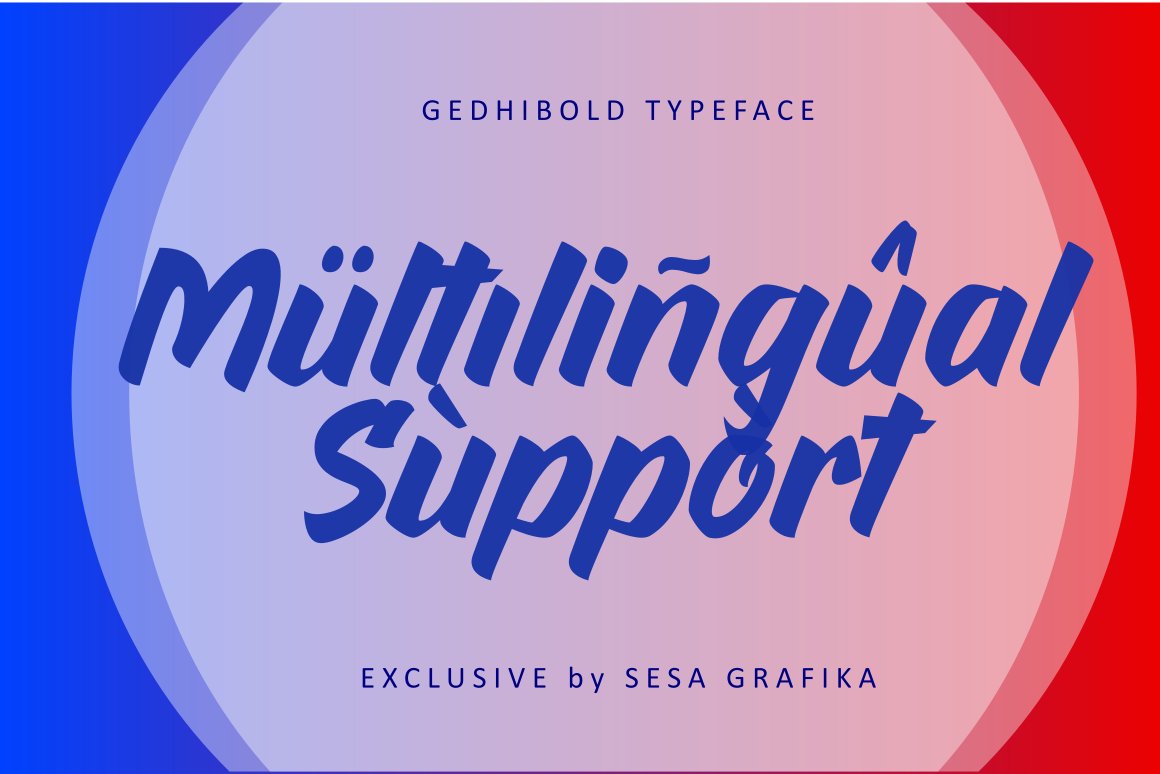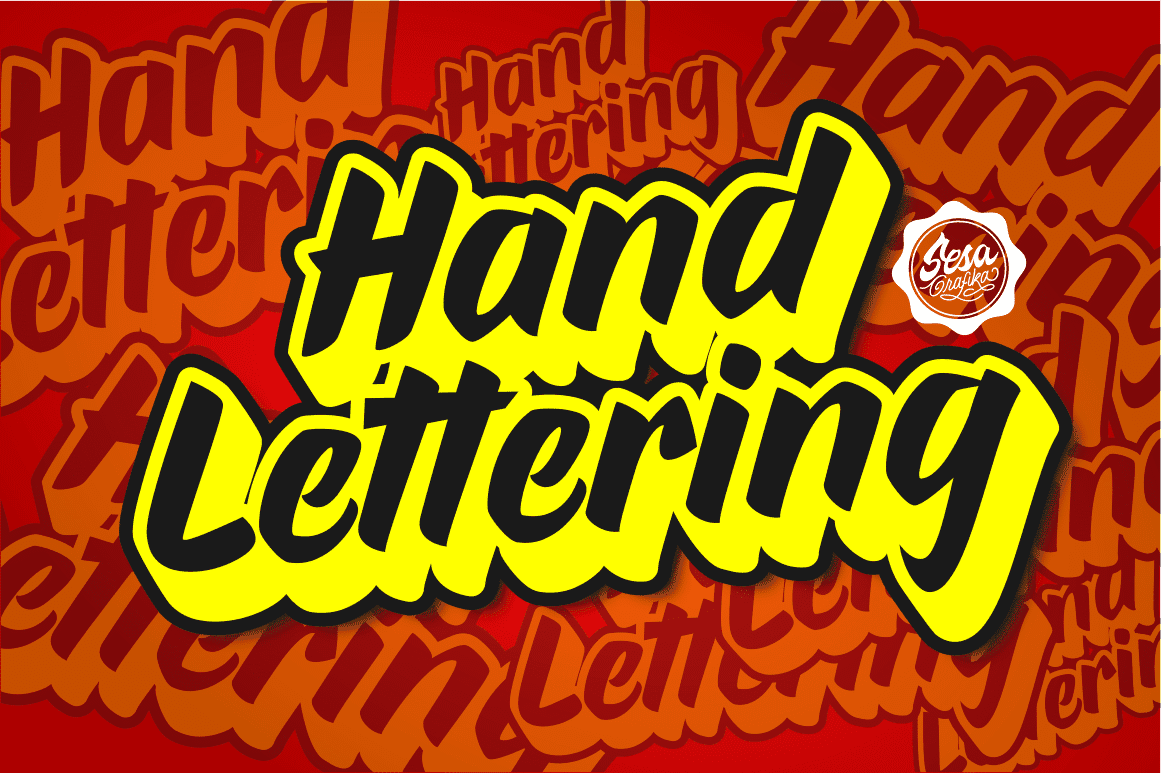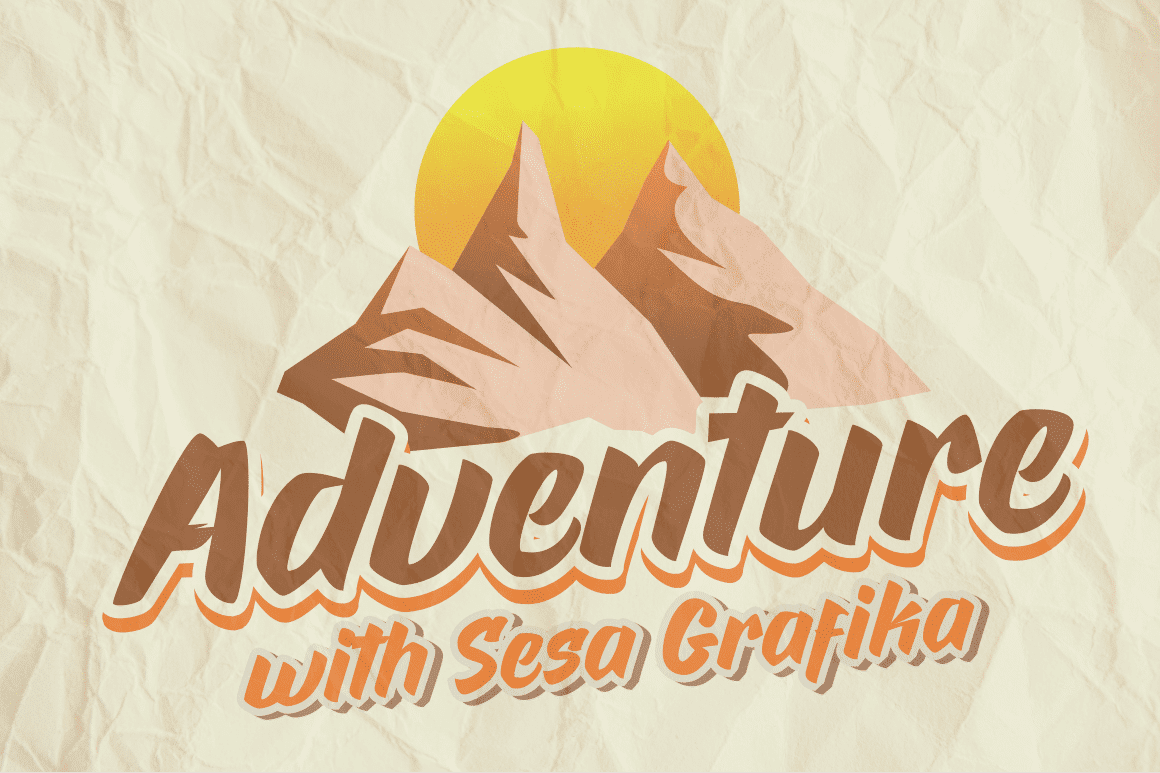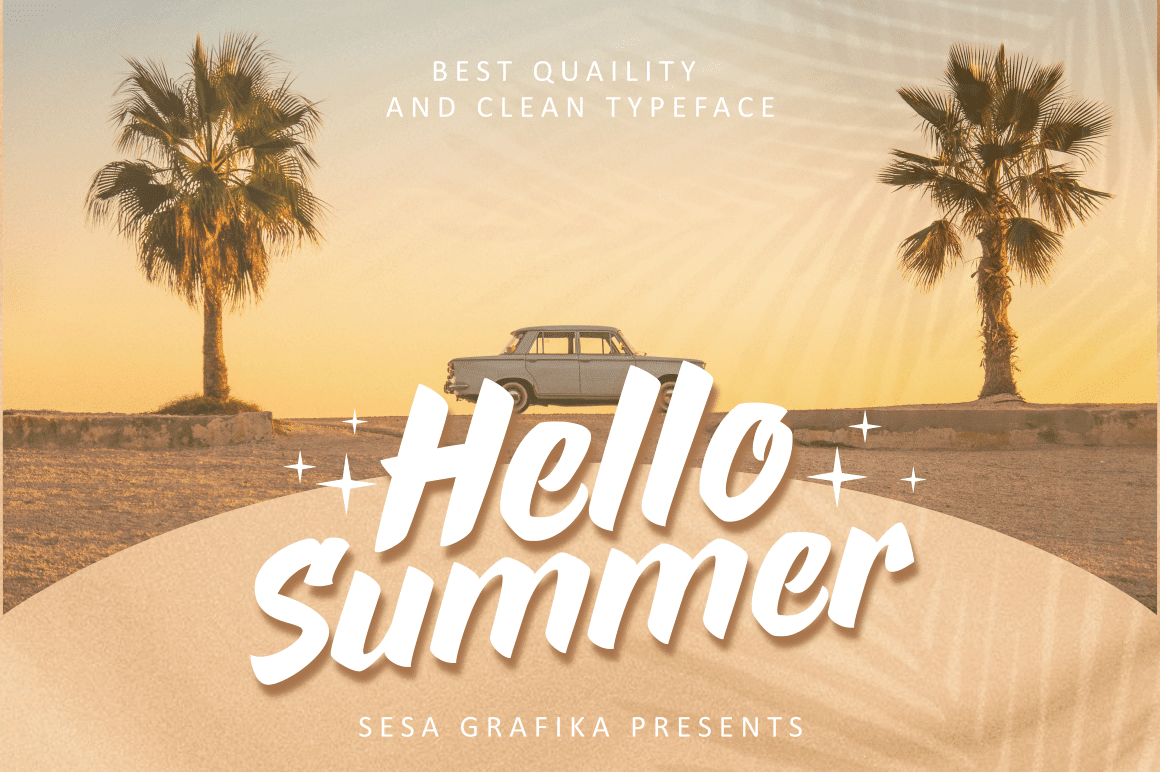
Gedhibold Font
Gedhibold font is a retro groovy display font. Use this display font to add that special retro touch to any design idea you can think of! Masterfully designed to become a true favorite, this font has the potential to bring each of your creative ideas to the highest level!
It will look great on headlines, magazines, logos, branding and so much more!
Gedhibold latest style letters are perfect for wall displays, wedding invitations, social media post logos, advertisements, product packaging, product designs, labels, photography, watermarks, invitations, stationery, and any project that requires handwritten taste.